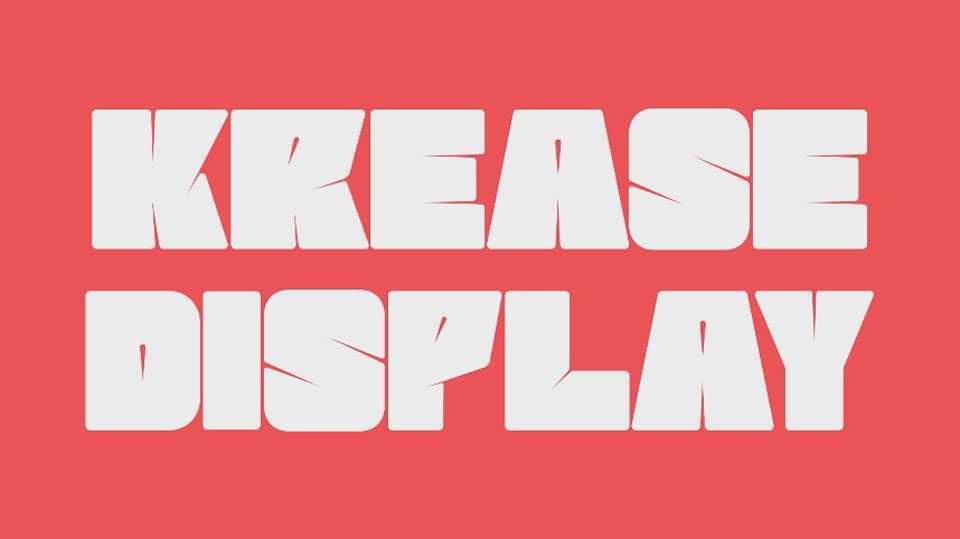
Download Krease Display font, a bold and loud display typeface designed to make an audacious statement in your designs. Krease Display font commands attention with its robust and powerful presence, creating a visual impact that resonates with strength and authority.